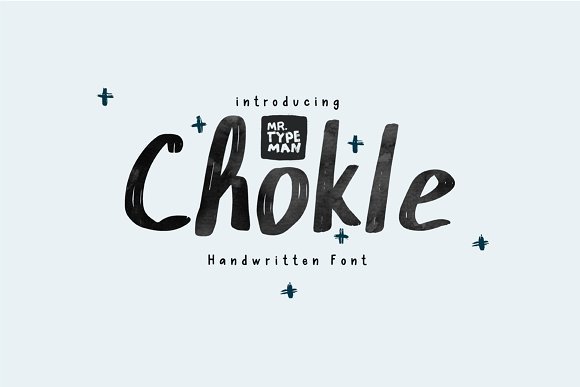
Chokle Font
Introducing Chokle Font! Chokle designed by Mr.Typeman, this is a premium font, are sold on creativemarket, but it was great, it is free today for download. Chokle is one of the funkiest typefaces you’ve ever seen! Perfect for logo’s, cards, invites, lettering and other designs. Chokle comes with Uppercase, Lowercase and Standard Punctuation.